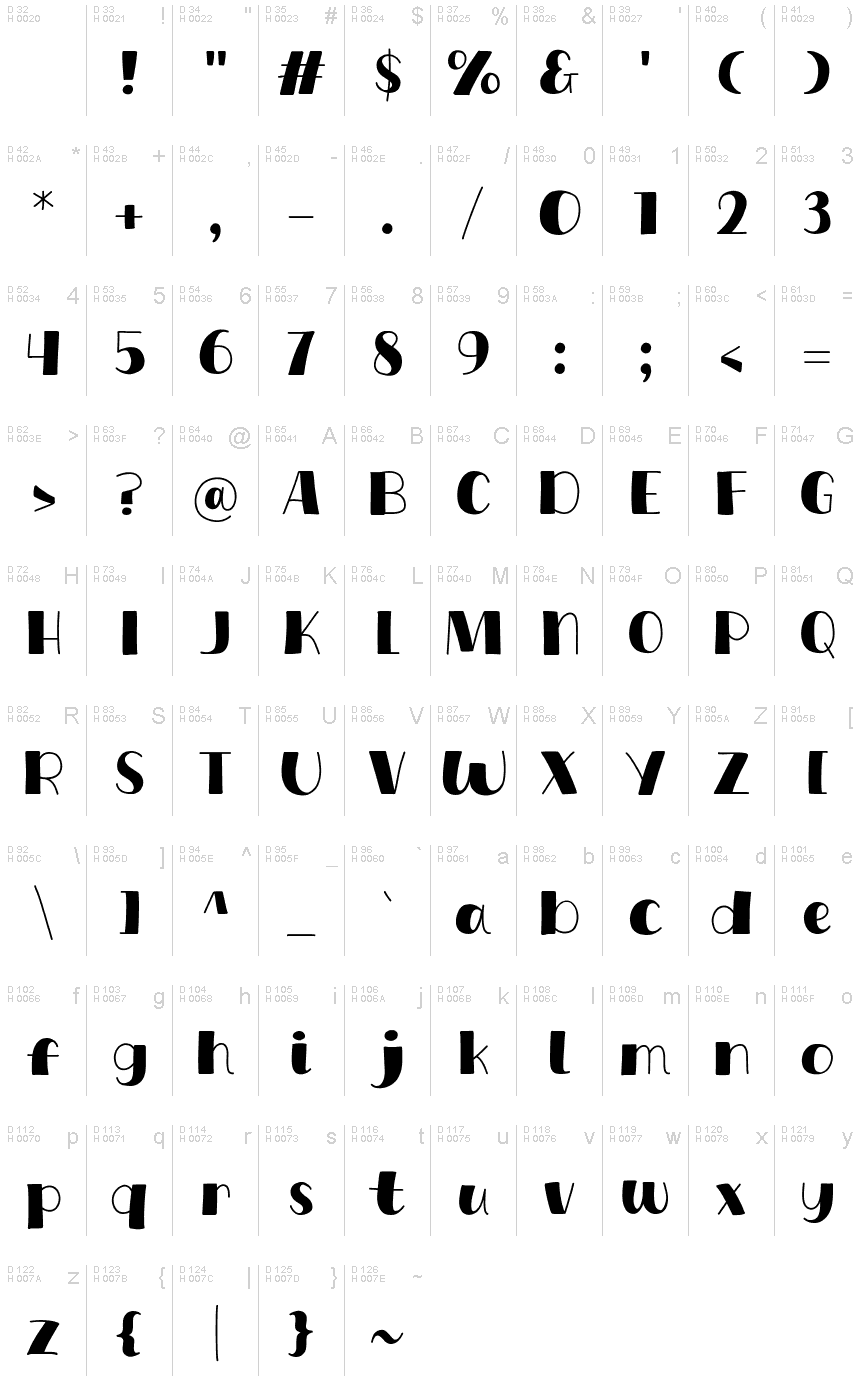
Coffee Show
Coffee Show, crafted by the renowned font designer Khurasan, embodies a playful yet bold spirit that instantly infuses any project with its unique cartoon style and extra-bold weight.
Perfect for those looking to add a touch of whimsy to their work, this modern and fancy display font is an ideal choice for projects ranging from eye-catching posters and dynamic logos to stylish magazines and creative book covers. Its versatility extends to designing vibrant banners and other engaging visual elements that demand attention.
Embrace the charming personality of Coffee Show in your designs and watch as it brings your creative ideas to life with a distinctive flair that's hard to miss!